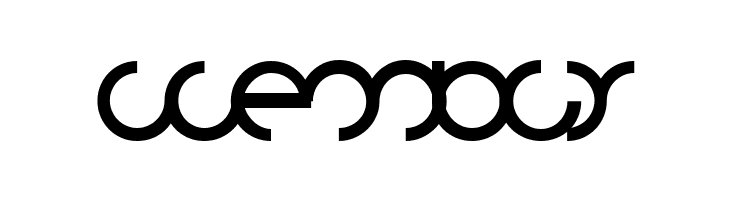
Christmas Lights Font
- Font: Christmas Lights
( Fonts by PaulW - paulw.deviantart.com )
A modern, geometric font with bold, interconnected letterforms and a futuristic style.